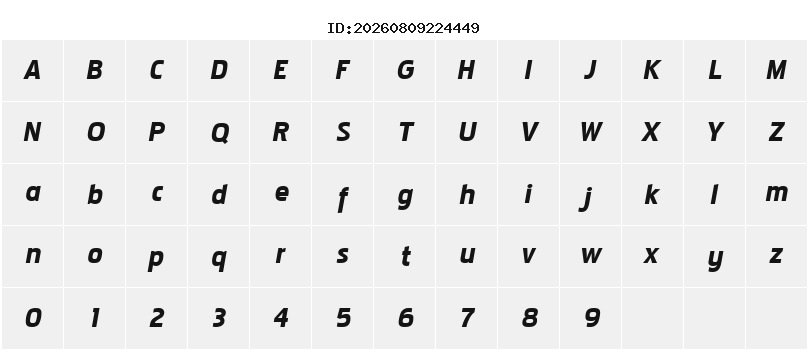
• Font Name: Pakenham Xp Blk
• Full Font Name: Pakenham Xp Blk Italic
• Designer: Ray Larabie
About Pakenham Xp Blk.ttf
Pakenham Xp Blk.ttf is a modern, elegant sans-serif font designed for ultimate readability and visual harmony. Perfect for branding, headlines, web design, and print materials.